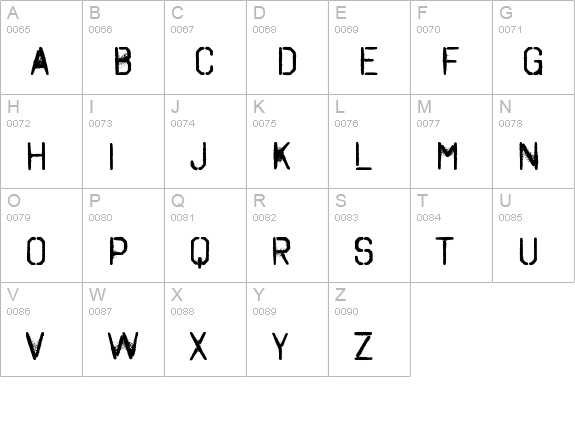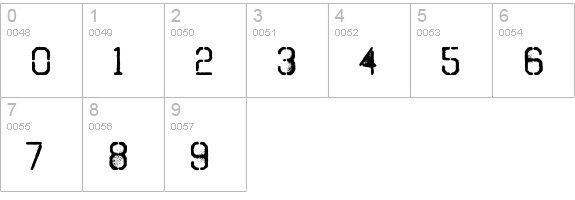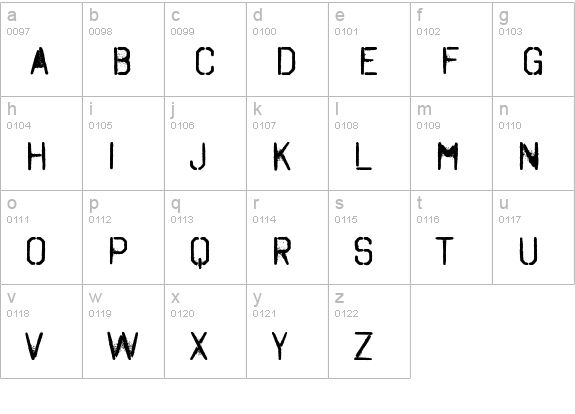
Octin Spraypaint A Rg Font Details
Octin Spraypaint A Rg font is a bold and edgy typeface that exudes a raw and urban feel. With its rugged brush strokes and distressed appearance, this font is perfect for creating eye-catching designs that demand attention. Whether you're working on graffiti-inspired artwork, streetwear designs, or anything that needs a touch of rebelliousness, Octin Spraypaint A Rg font is sure to make a statement. The best part is, this font is available for free download at FontsMarket.com, making it accessible to designers and creatives looking to enhance their projects with a unique and expressive typeface. Don't miss out on the opportunity to add Octin Spraypaint A Rg font to your font collection and unleash your creativity with its bold and dynamic style.